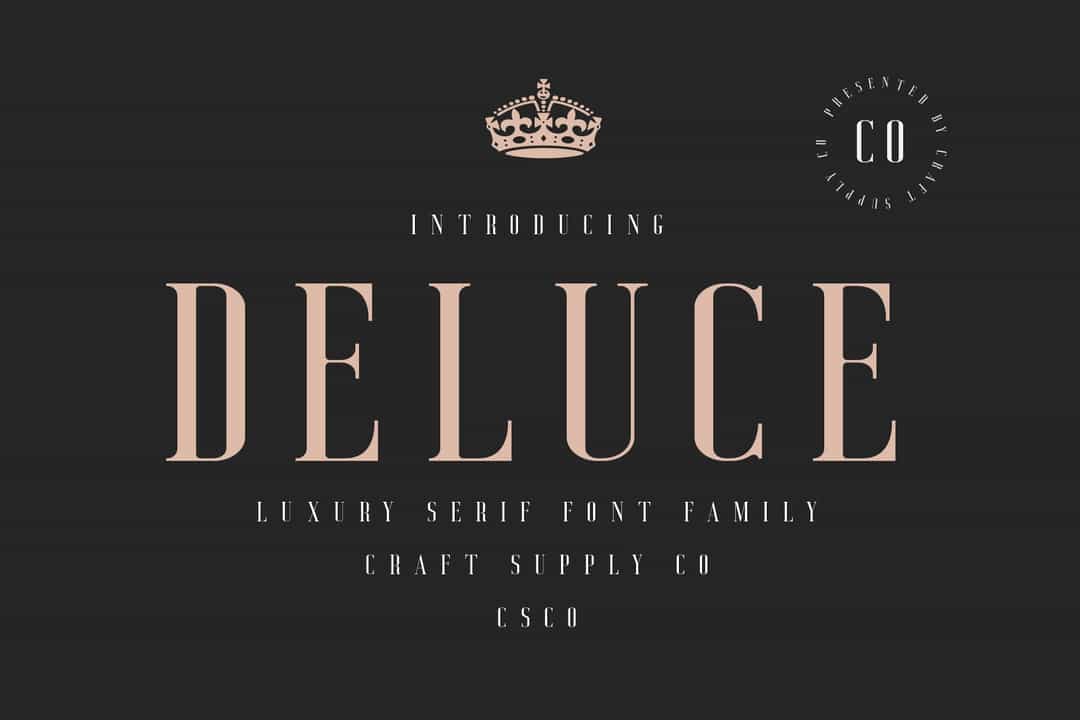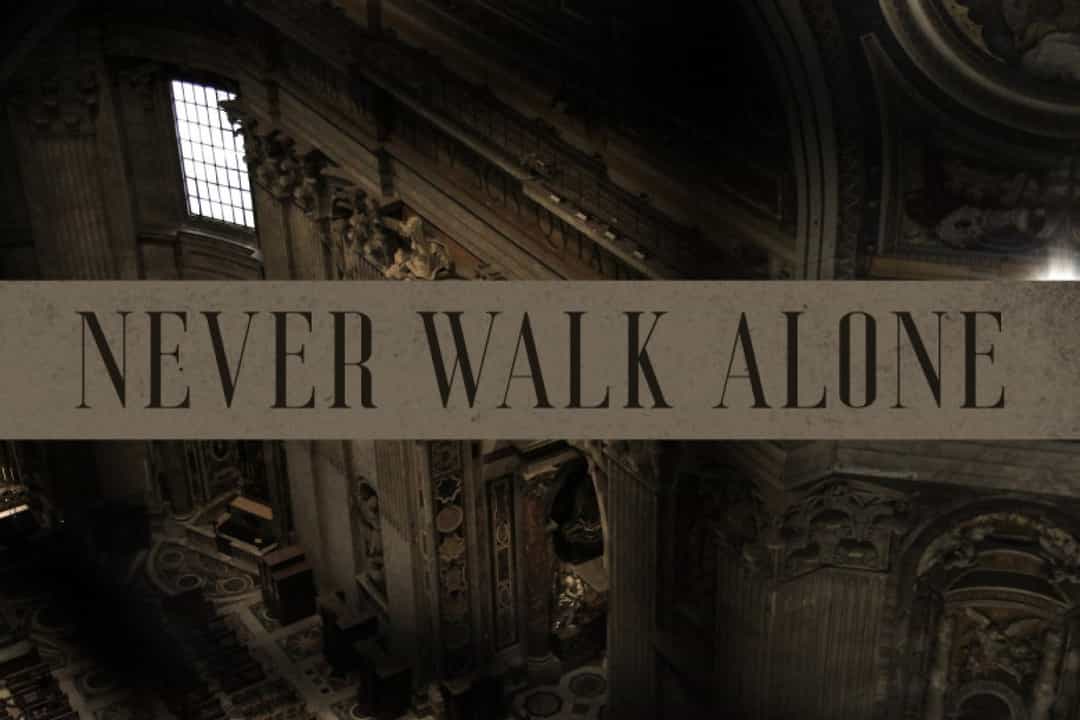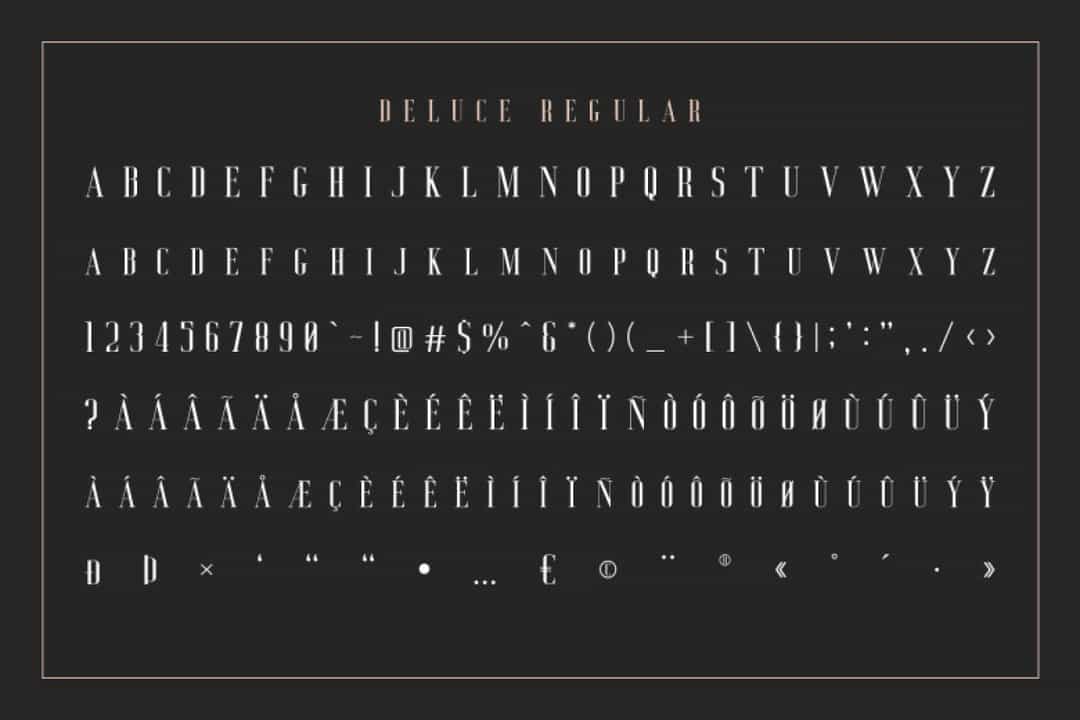
The Deluce is a contemporary group of serif typefaces whose design reminds us of the transitional serifs style. The characteristics of Deluce are the moderate contrast of strokes, the rounded forms of round letters, and the pronounced businesslike style.